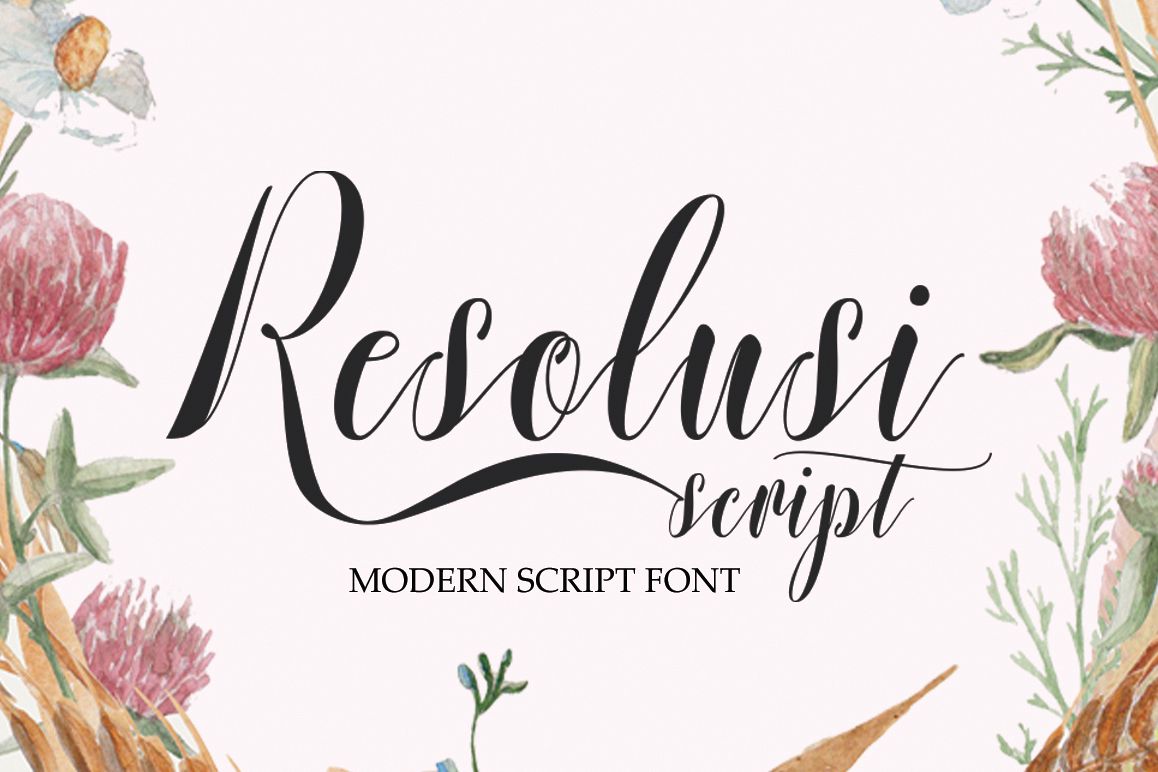
Resolusi Script
Resolusi Script is a modern script with a sweet calligraphy-style, decorative characters and a dancing baseline! So beautiful on invitation like greeting cards, signature, logos, wedding invitation, t-shirt, letterhead, signage, lable, news, posters, badges, branding materials, business cards, quotes, posters, and more!
Initial Alternates
Terminal Alternates
Stylistic sets
Ligature
Basic Latin A-Z and a-z
Numbers